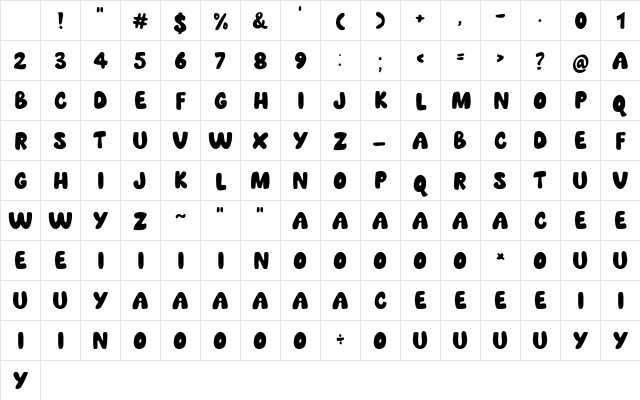
Power Smurf brings high-energy athletic personality to the page - its confident, muscular forms are built for impact.
Pro Tip: Use Power Smurf in all-caps headlines where its athletic energy can fully express itself. Pair with a solid, simple sans for supporting text.